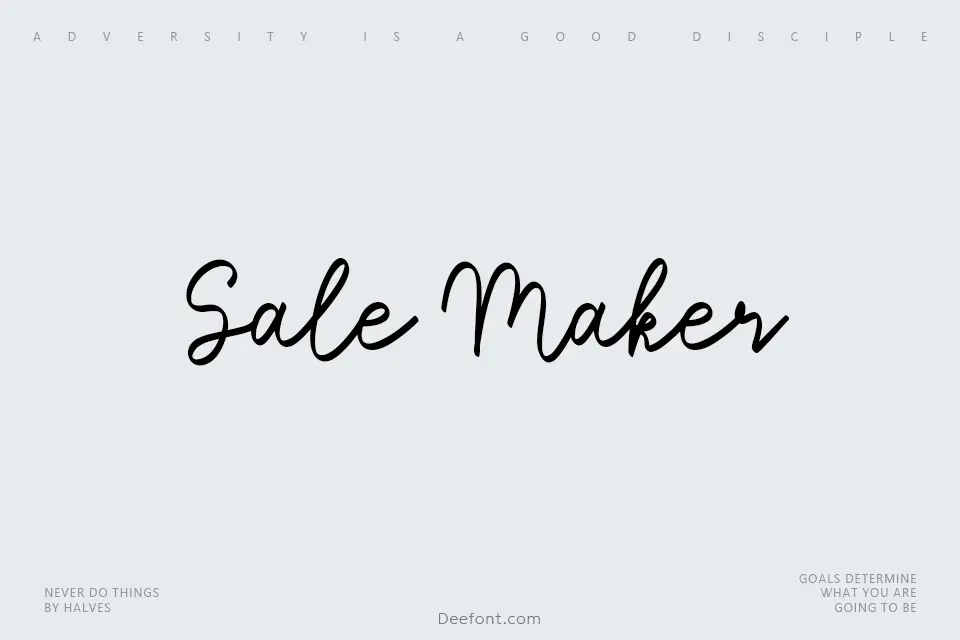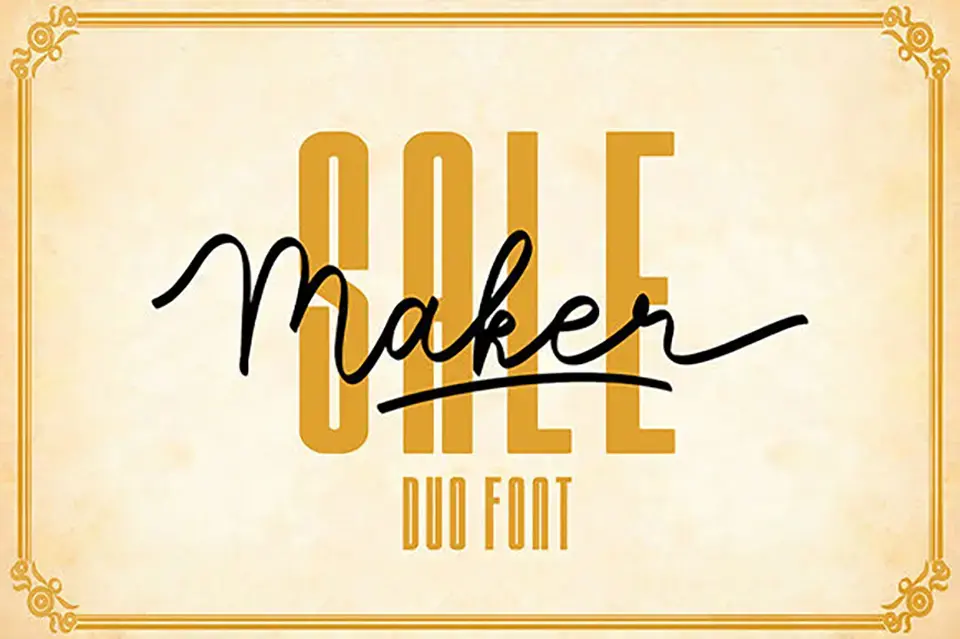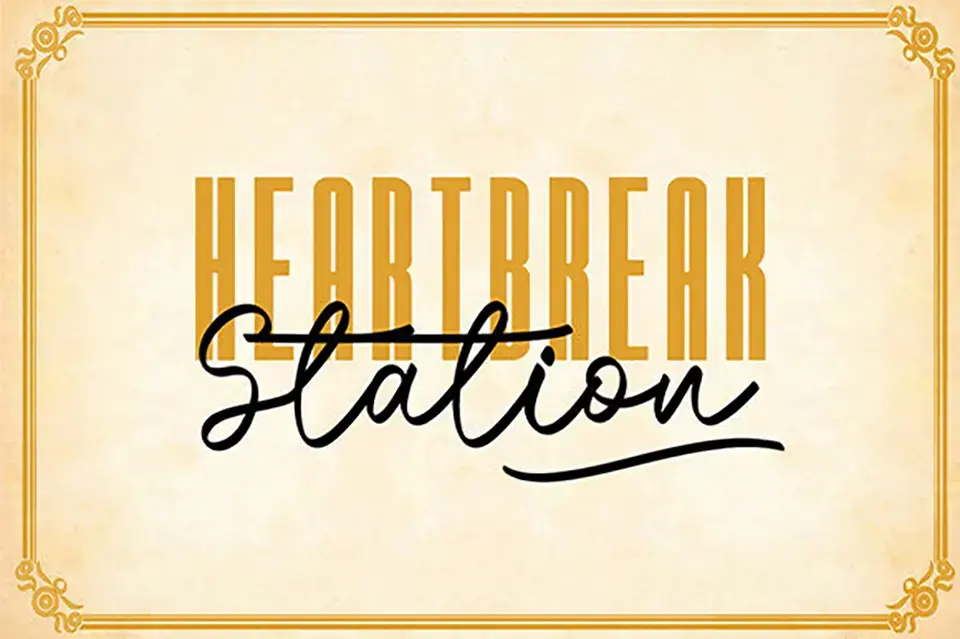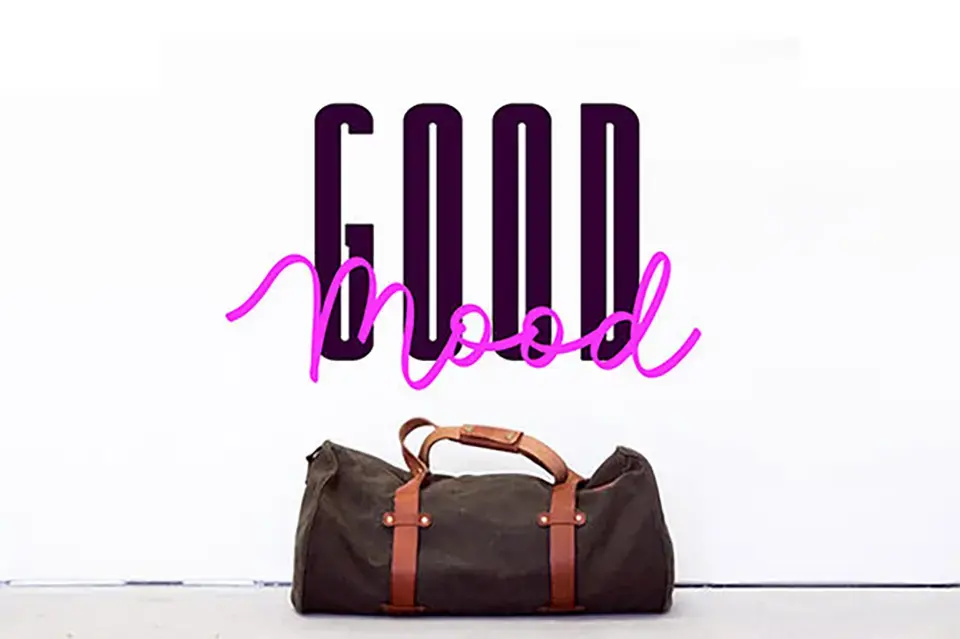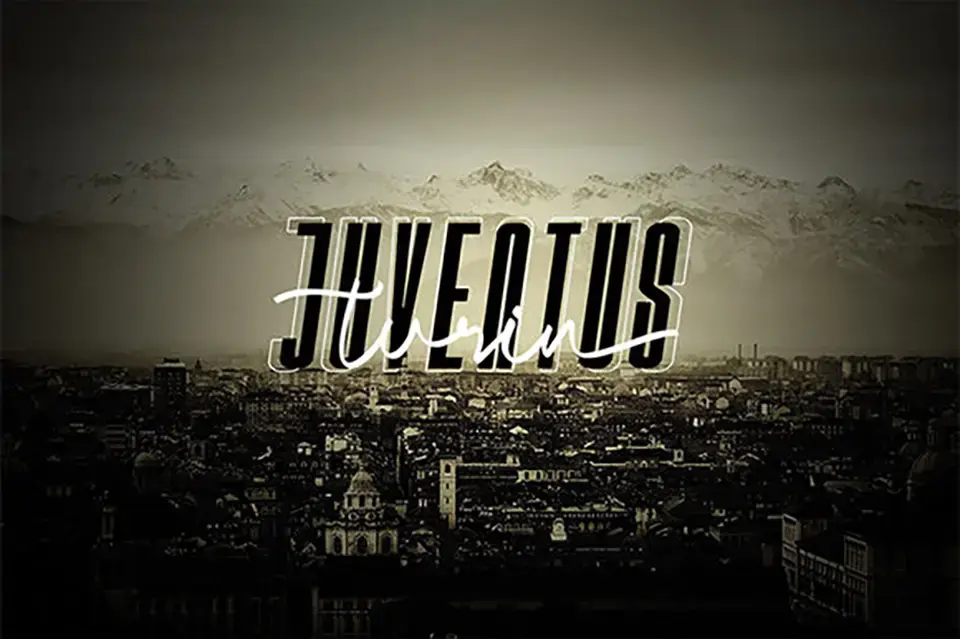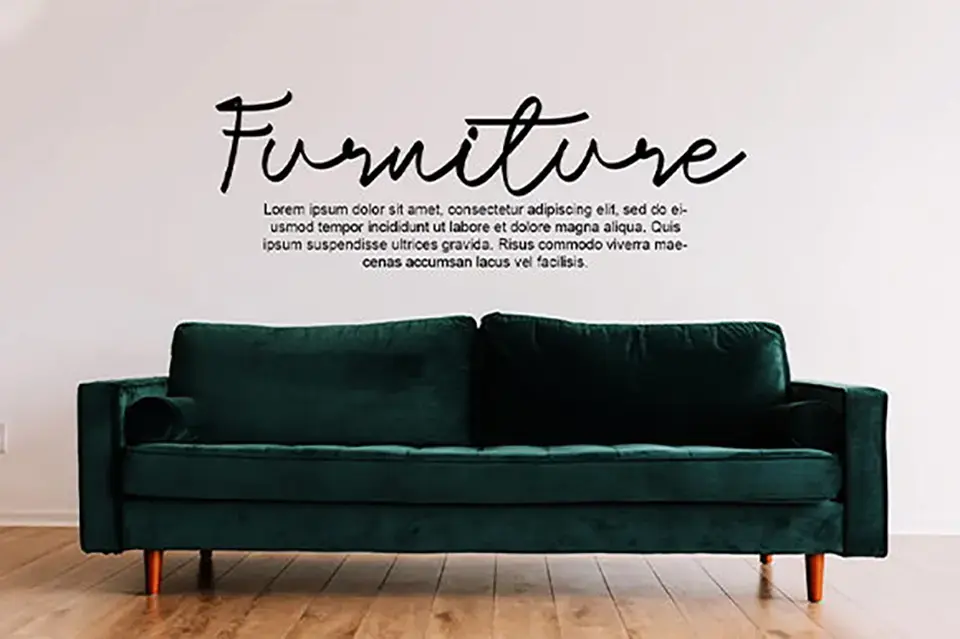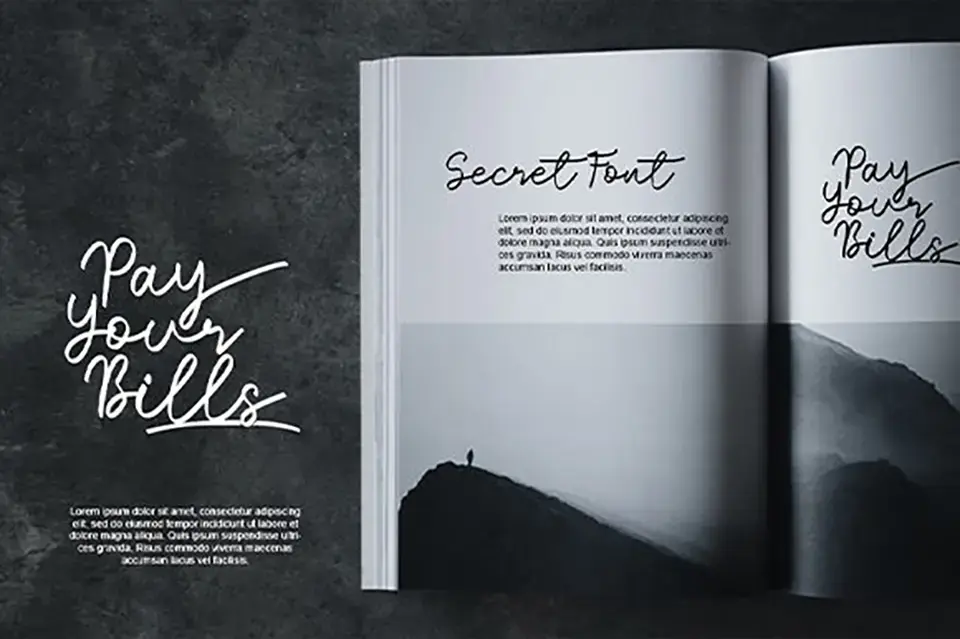
Sale Maker Script Font
Sale Maker Script is a sophisticated display script font featuring flowing, elegantly connected letterforms with natural calligraphic undertones. This handwritten-style typeface combines graceful curves and refined strokes to create visually compelling typography. Ideal for retail promotions, seasonal sale posters, product packaging, wedding invitations, brand logos, and high-impact display designs where decorative sophistication meets functional legibility. The font’s fluid character makes it perfect for e-commerce branding, luxury product presentations, and any creative project requiring an upscale, feminine aesthetic.